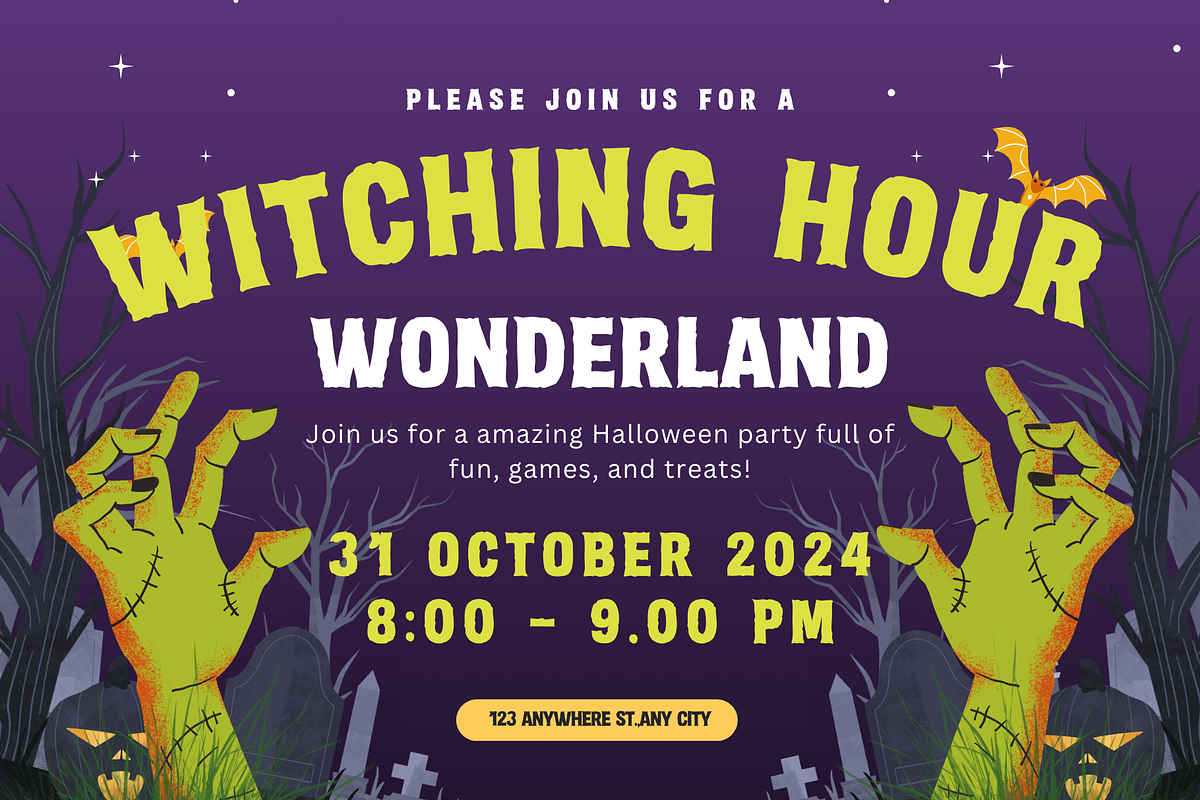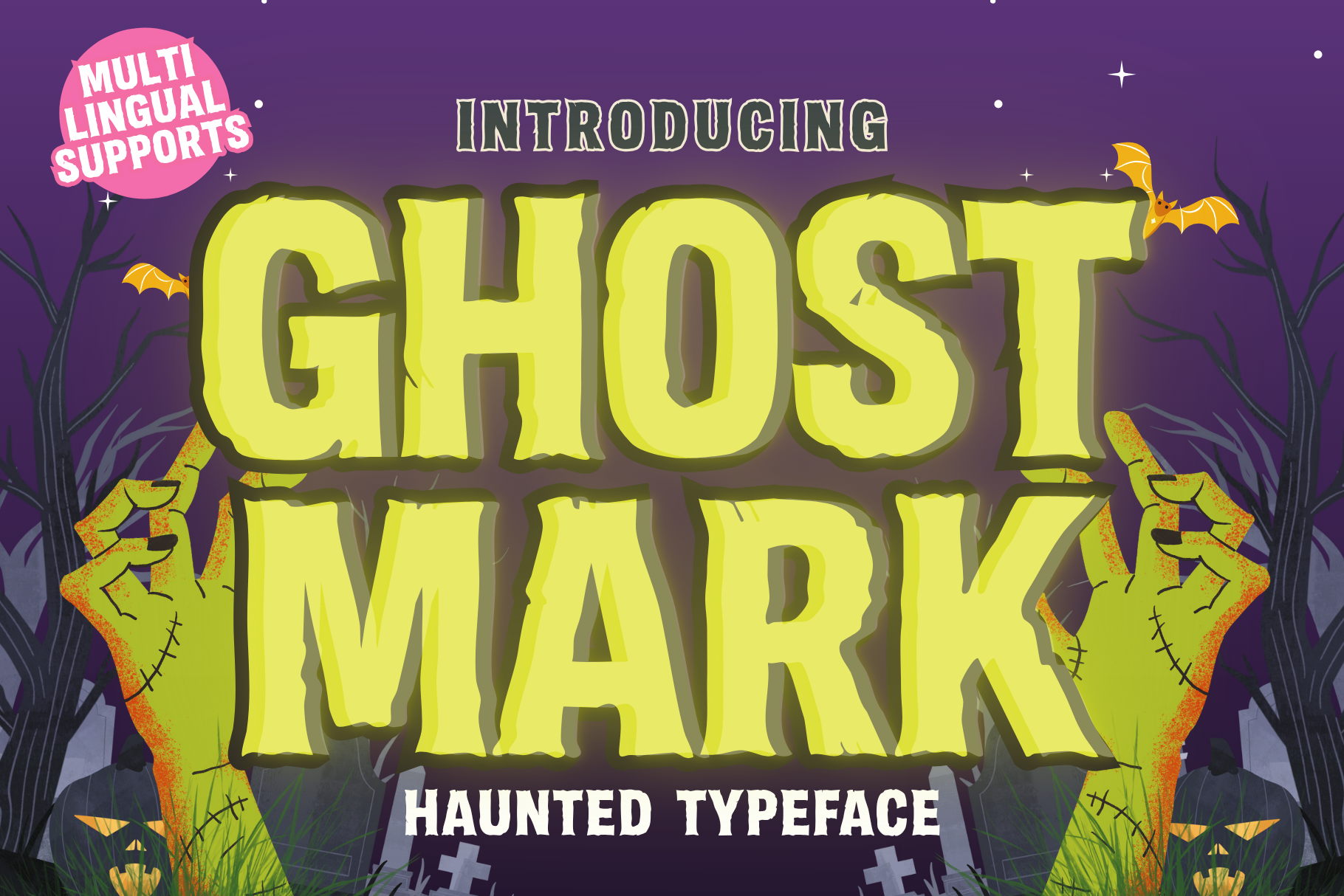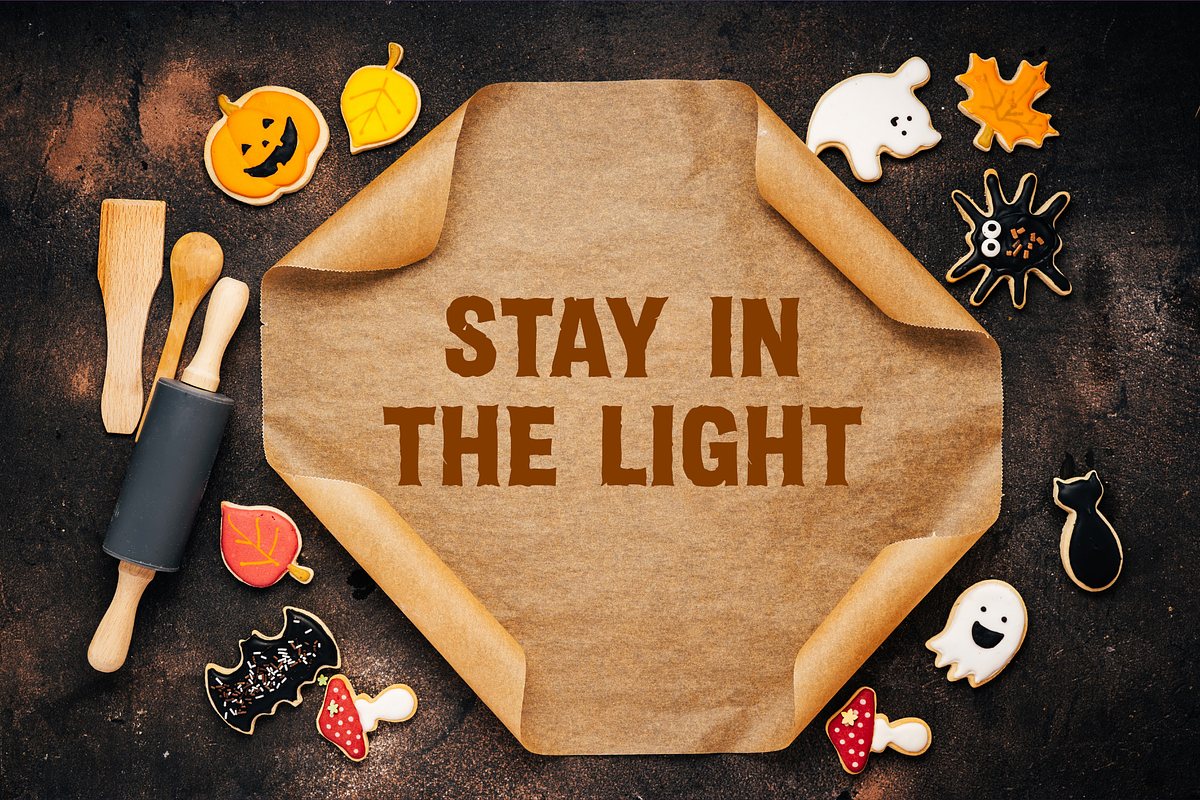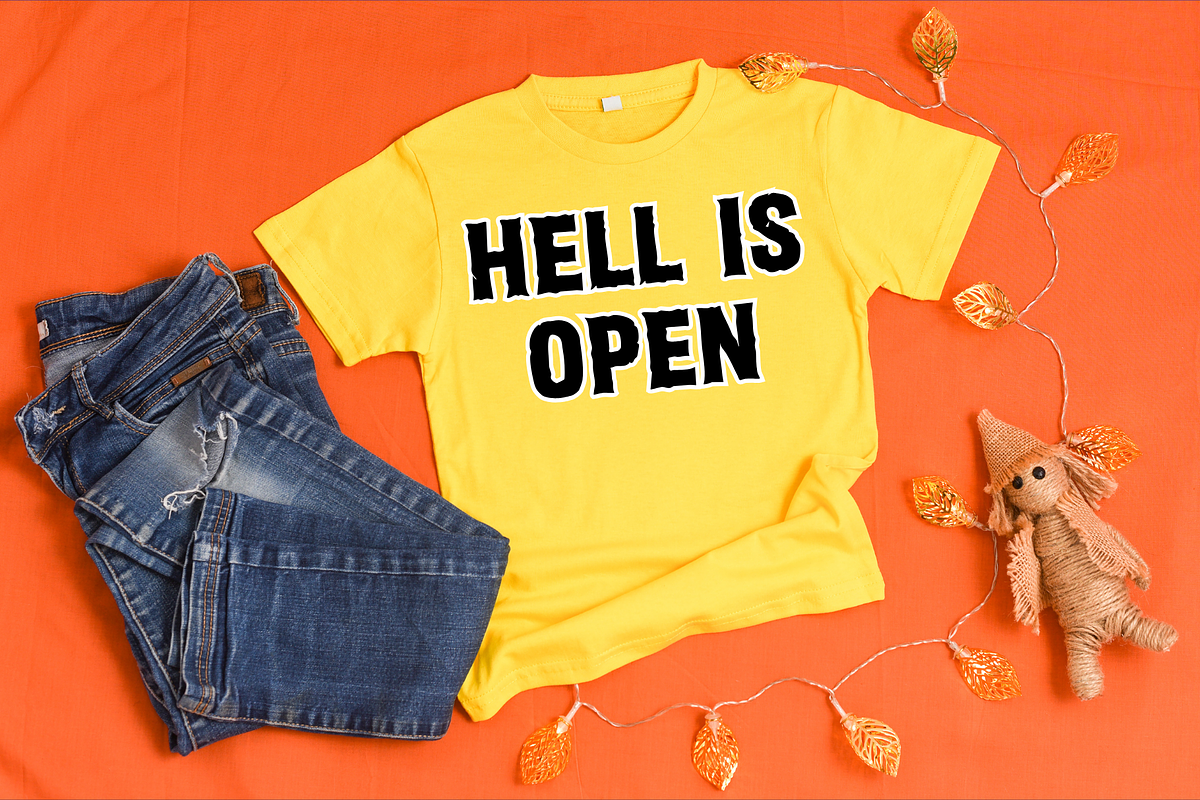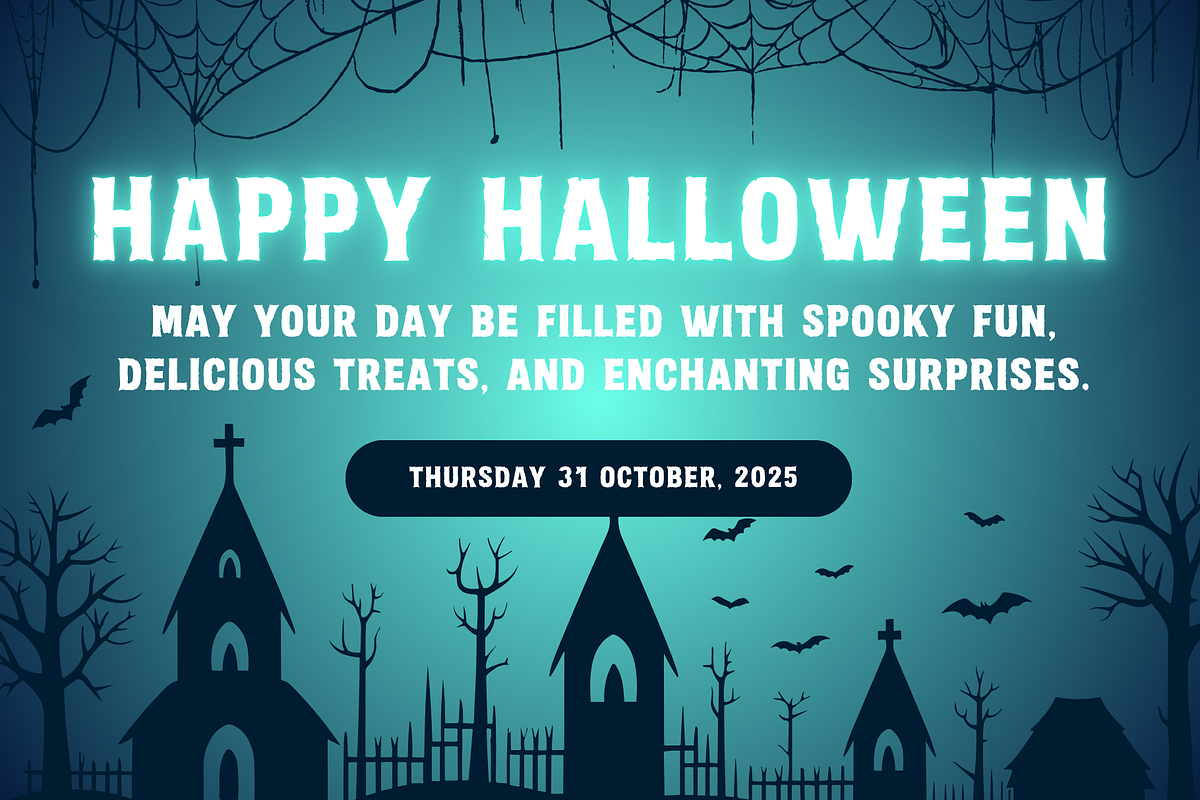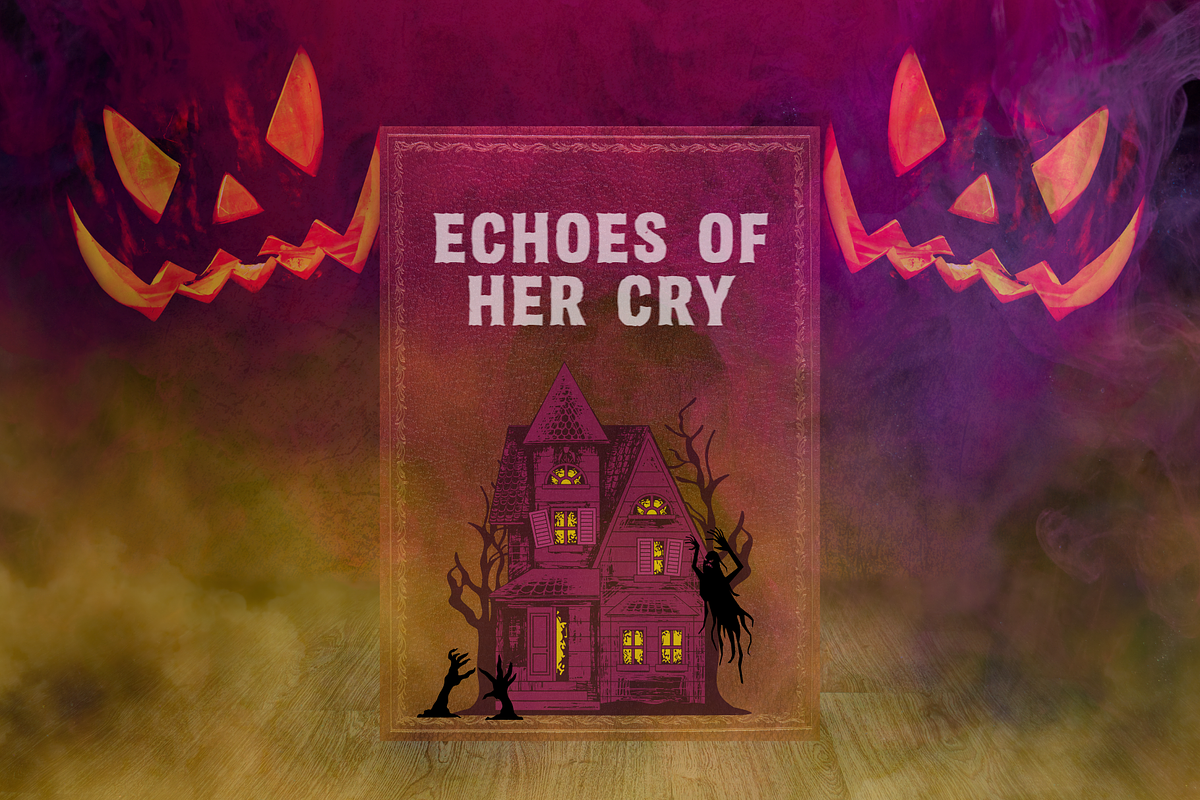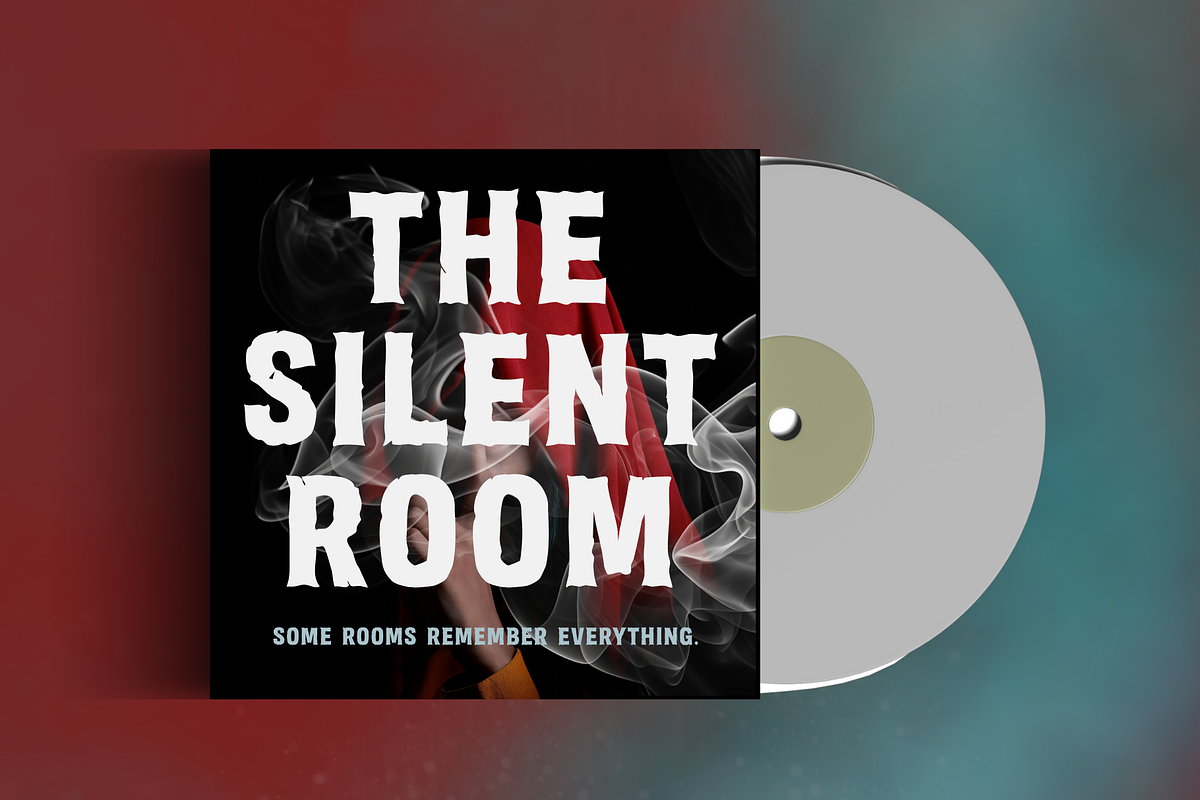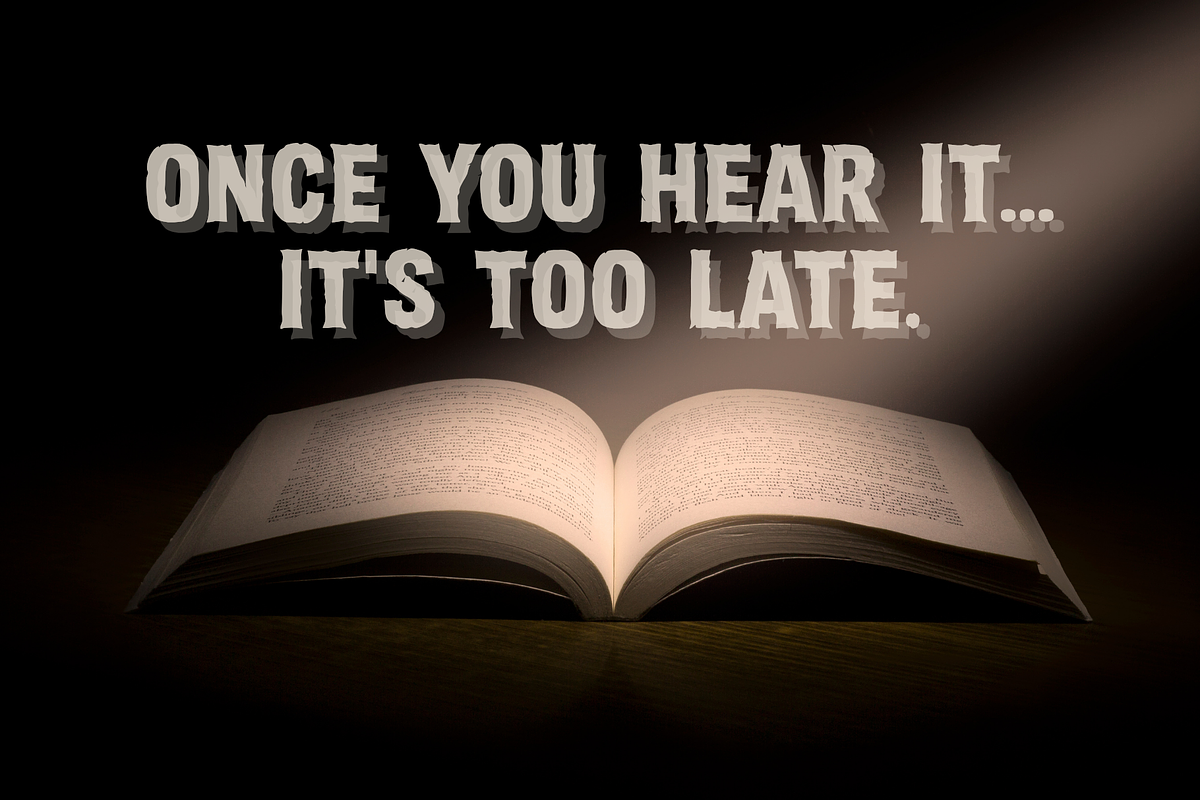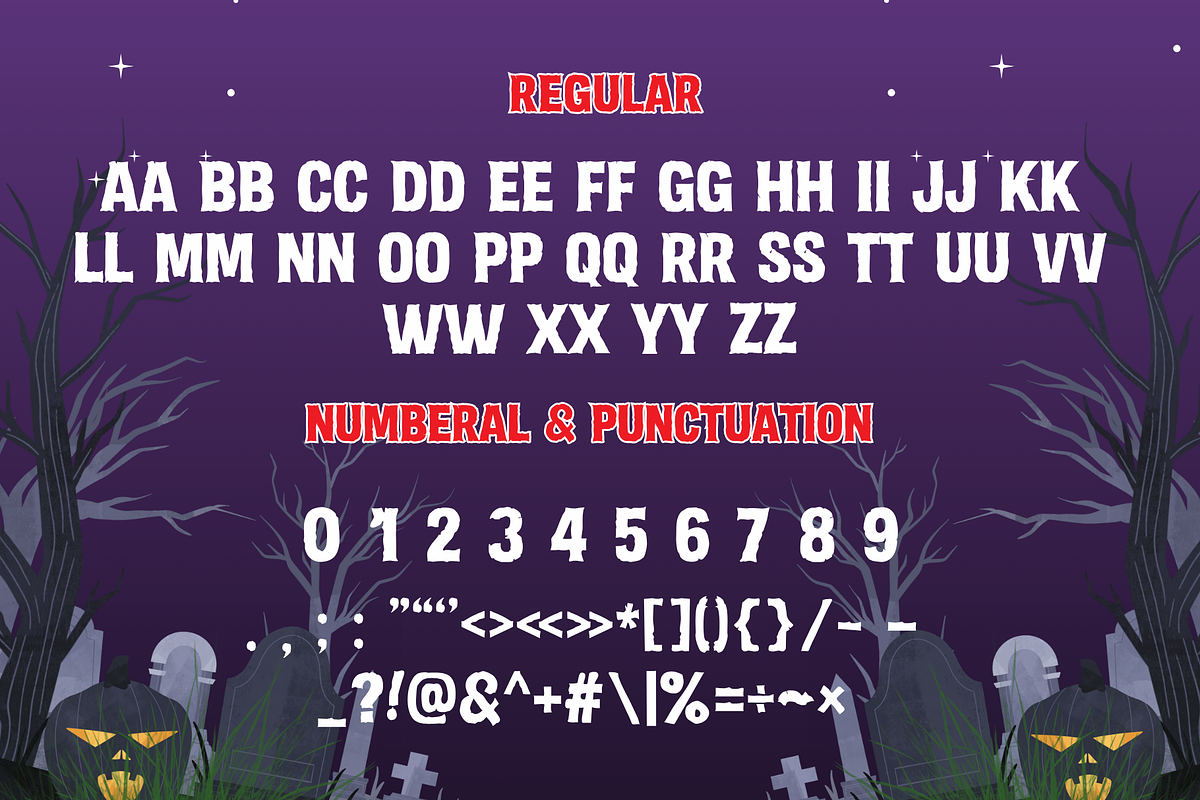
Ghostmark is a bold haunted typeface
Ghostmark is a bold, haunted typeface crafted for horror movie posters, eerie titles, and anything that needs a chilling edge. Its jagged outlines and distressed texture evoke the feeling of something left behind — a mark from the other side. With its gritty details and shadowy presence, GHOSTMARK makes every word scream with supernatural intensity.